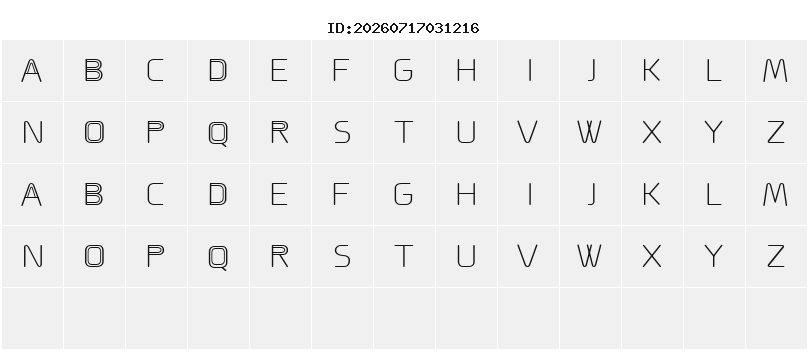
A CAPPELLA Preview
• Font Name: A CAPPELLA
• Full Font Name: A CAPPELLA
About A CAPPELLA.ttf
A CAPPELLA.ttf is a modern, elegant sans-serif font designed for ultimate readability and visual harmony. Perfect for branding, headlines, web design, and print materials.